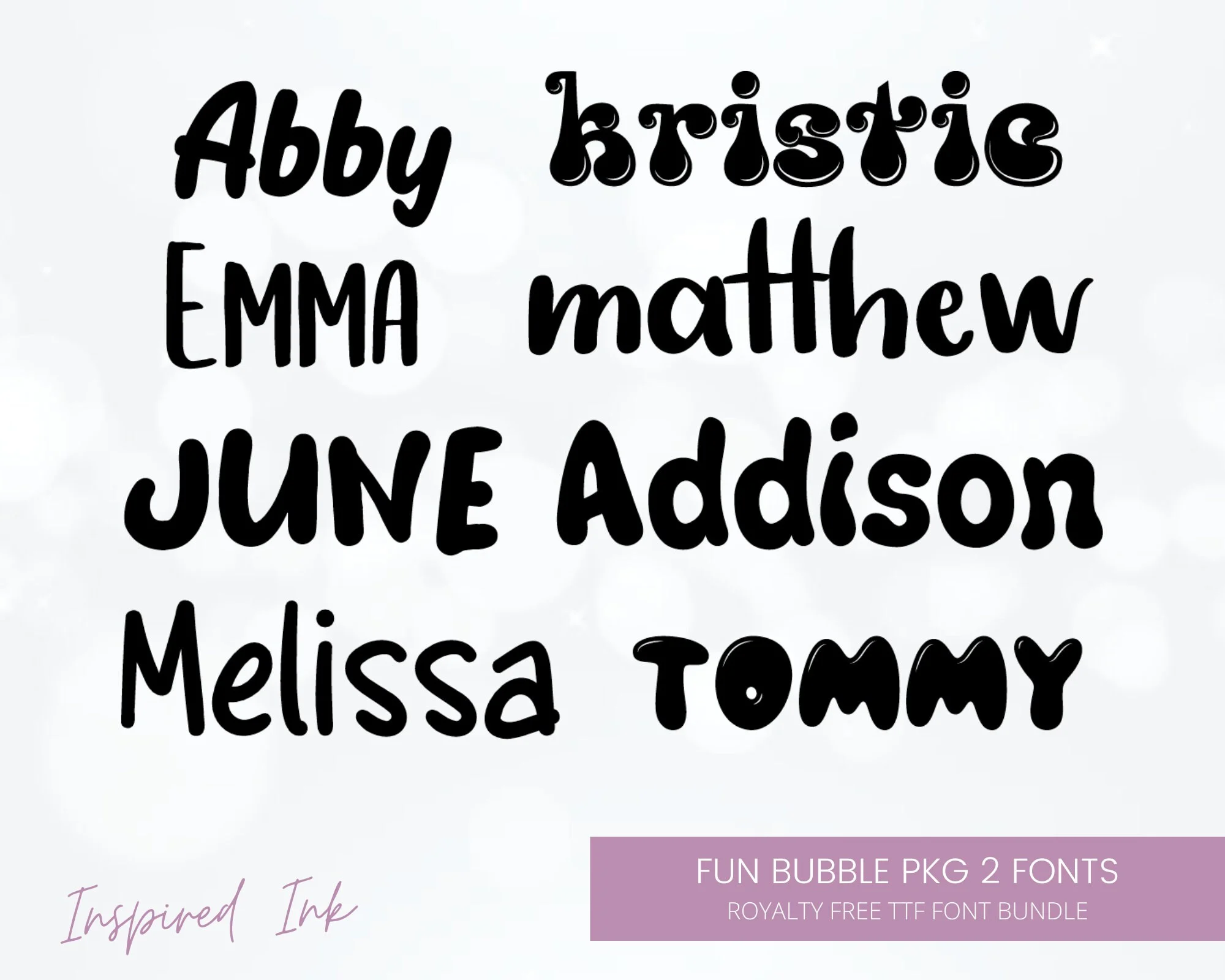
Fun Bubble font bundle ~ Children Font ~ Birthday Cards ~ Invitations ~ Birthday Parties ~ Scrapbooking ~Text file for Cricut and Silhouette
Bring joy and creativity to your projects with the Fun Bubble font bundle! Perfect for children’s birthday cards, invitations, and scrapbooking, this delightful bubble font adds a playful touch to any design. Whether you’re crafting for a party or creating personalized gifts, this font will make your text stand out.
The Fun Bubble font bundle includes 8 charming .TTF and .OTF font files designed specifically for children’s themes. Ideal for anyone looking to add a whimsical flair to their designs, this bundle is perfect for party planners, crafters, and DIY enthusiasts.
• ✅ 8 Unique Fonts → Choose from a variety of playful styles to match your project’s theme.
• ✅ Versatile Applications → Perfect for birthday cards, invitations, scrapbooking, and more, making it a must-have for any creative.
This Fun Bubble font bundle stands out due to its playful design and versatility. You can use it for various projects, from digital downloads to physical products. Plus, it’s compatible with popular design software, ensuring a seamless experience for both beginners and seasoned designers.